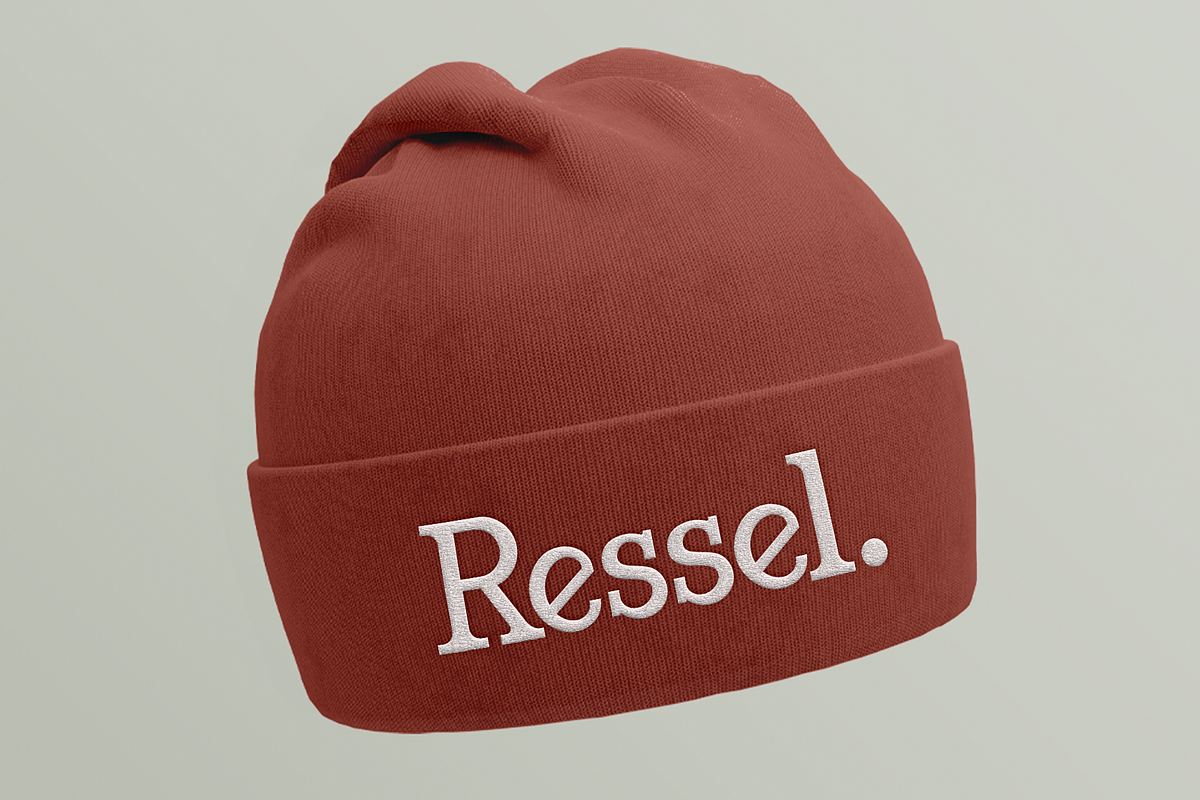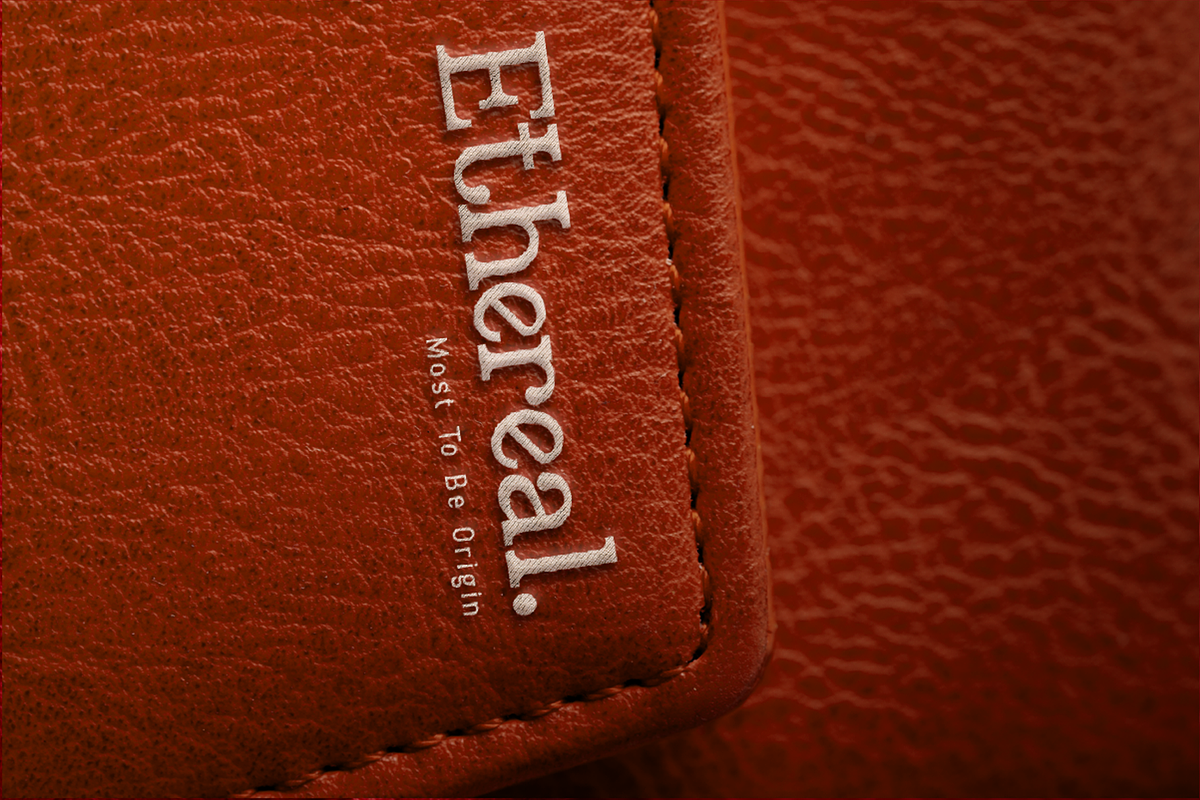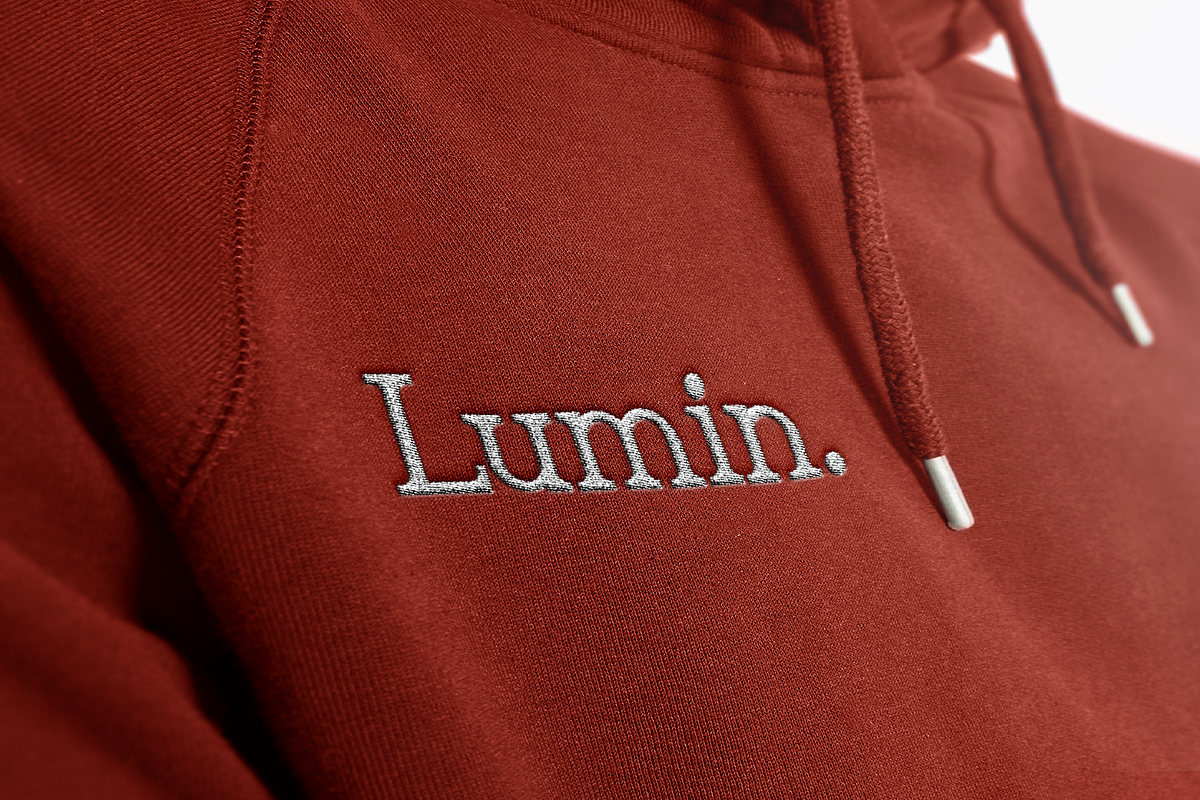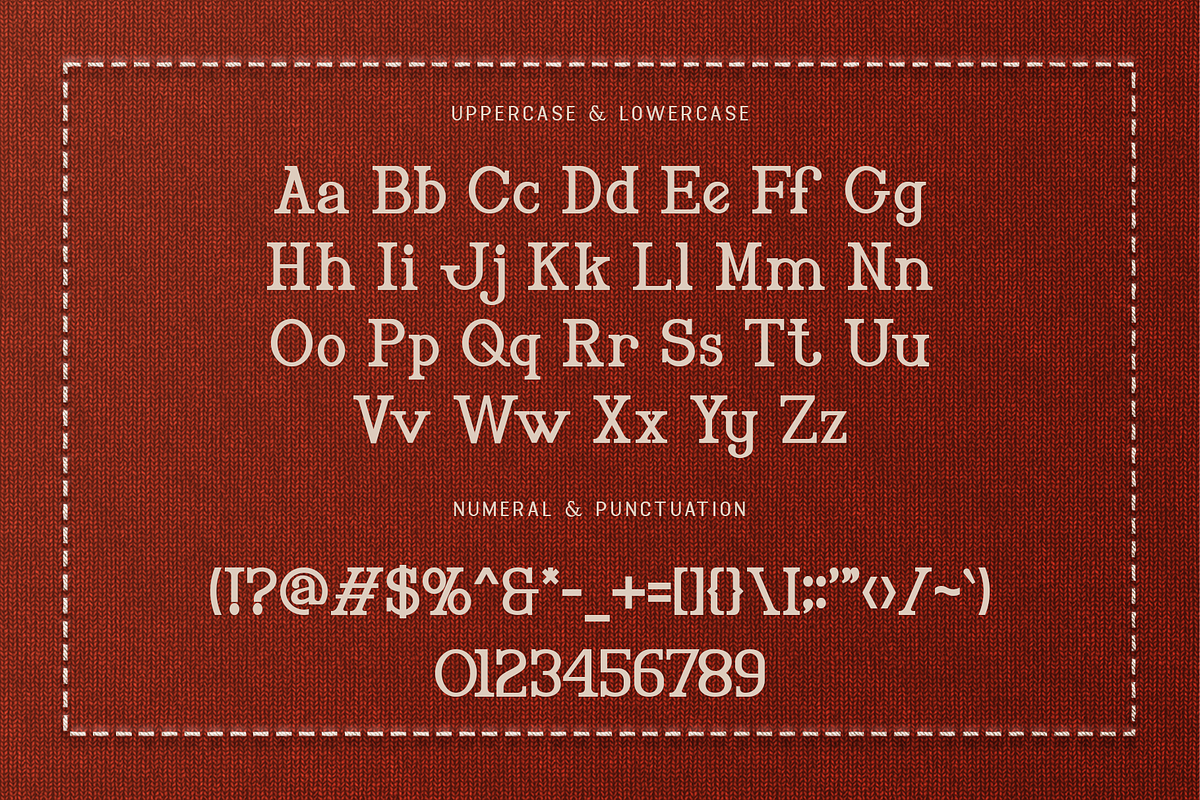
Elizabeth - Embroidery Serif Font
Introducing "Elizabeth," an embroidery serif font that adds a touch of elegance and charm to your designs. Inspired by the artistry of needlework, Elizabeth brings sophistication to any project with its delicate serifs and graceful forms.
Crafted with meticulous attention to detail, Elizabeth is perfect for adding a handmade touch to branding materials, apparel designs, or decorative accents. Its intricate details and classic serifs make it a standout choice for projects that demand a touch of timeless beauty.
Featuring uppercase and lowercase letters, numbers, and punctuation marks, Elizabeth offers versatility and flexibility for all your creative endeavors. Stitch elegance into every letter and elevate your designs with the enchanting charm of Elizabeth.